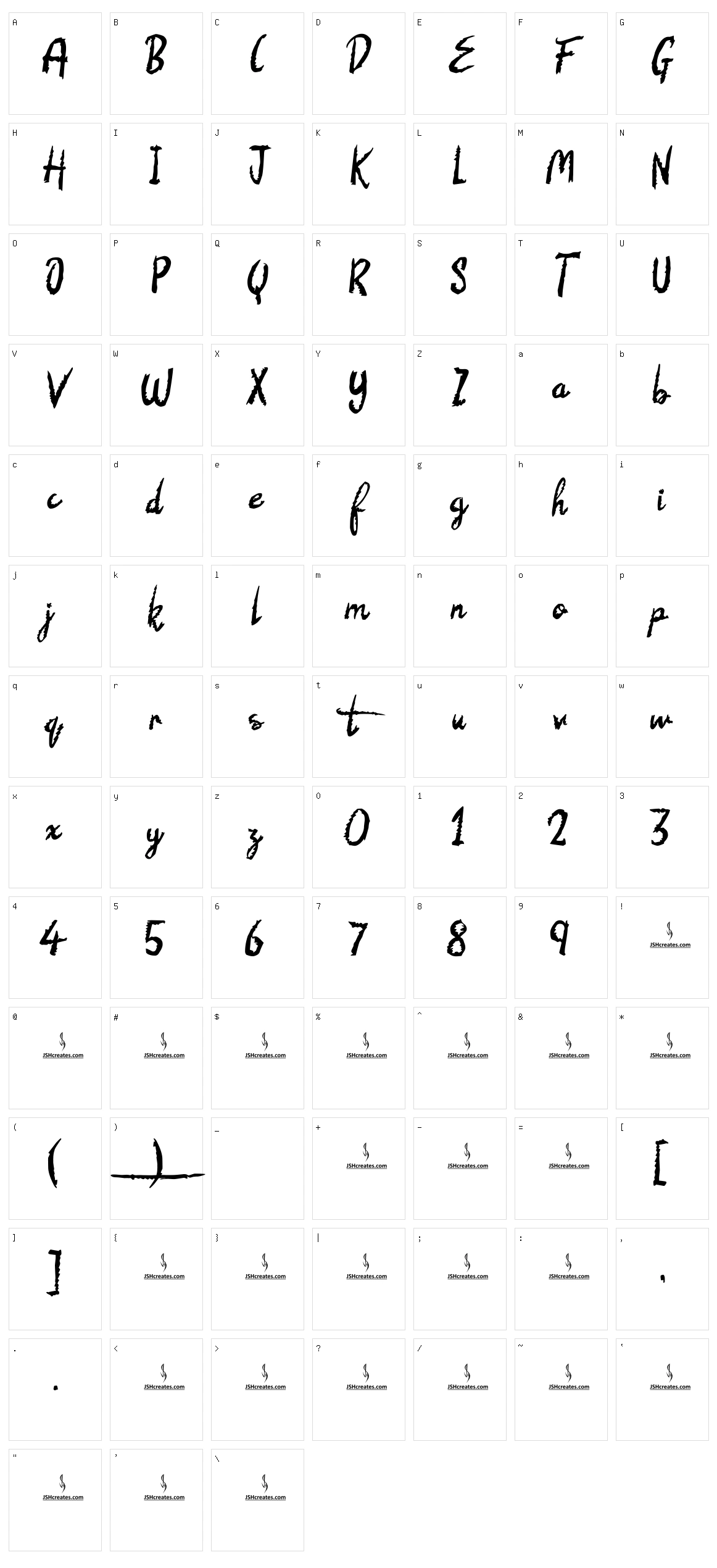
The free font The Shocker Bot is carefully designed by JSH creates, showcasing a thoughtful balance of creativity and usability and falls under the Script font style. When you download the ZIP file, it contains only 23.01 KB of font files, making it lightweight and quick to download. Please review the license details below to understand permitted usage and distribution rights. If license information is not available, we recommend using this font for personal projects only or contacting the author directly for commercial usage permissions.